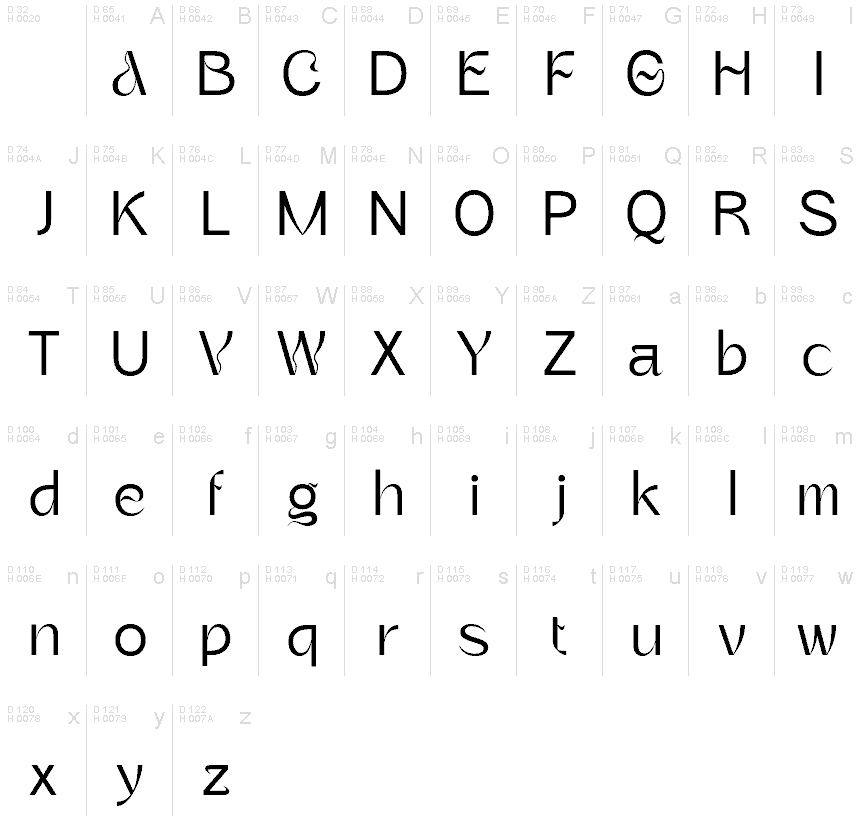
CS Bonita Demo Regular
CS Bonita font by Craft Supply Co. displays a modern look thanks to its geometry, clean lines, and minimalistic design. The light sans serif font holds an elegant mood that is sure to impress whatever project it graces. Some say simple does it, whether or not you agree with this statement, CS Bonita’s simple style is bound to attract attention.